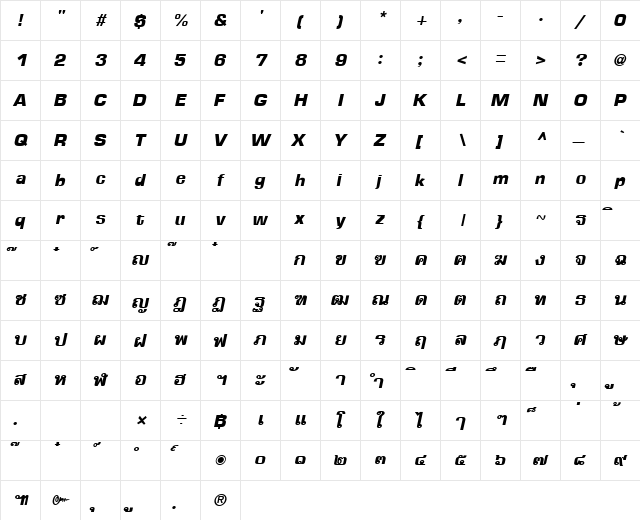
PSL-Chamnarn Bold Italic
Design Context for PSL-Chamnarn Typeface
PSL-Chamnarn offers clean, dependable letterforms without strong stylistic allegiance, making it a practical choice for designers who need flexibility. The slanted form adds forward momentum and visual energy. Its bold stroke weight gives it real presence on the page.